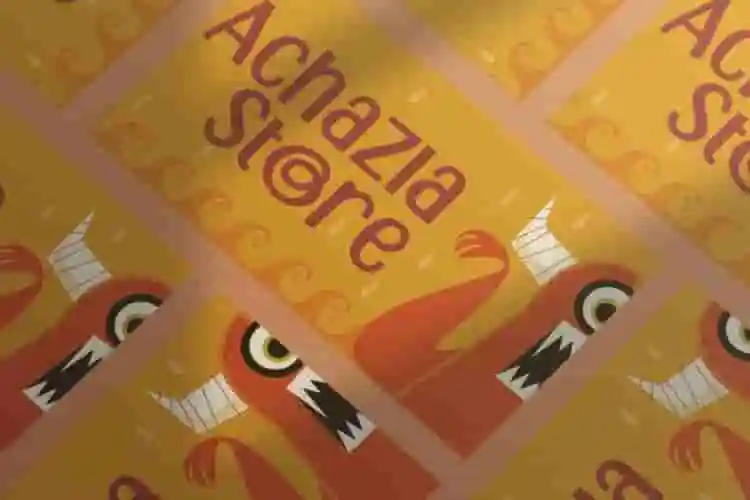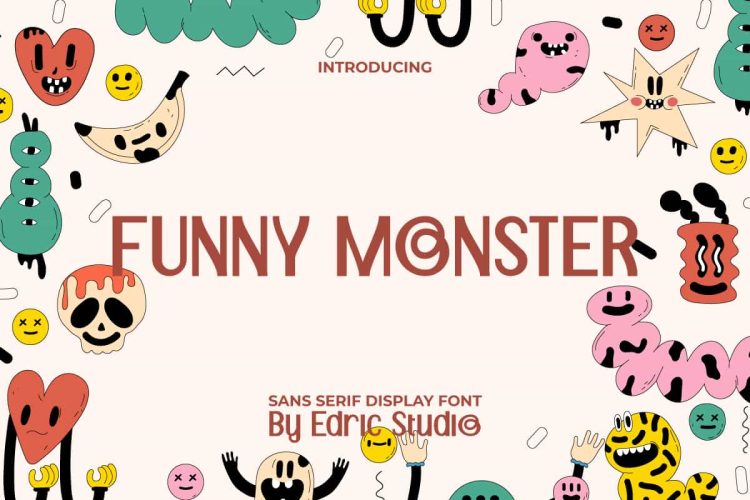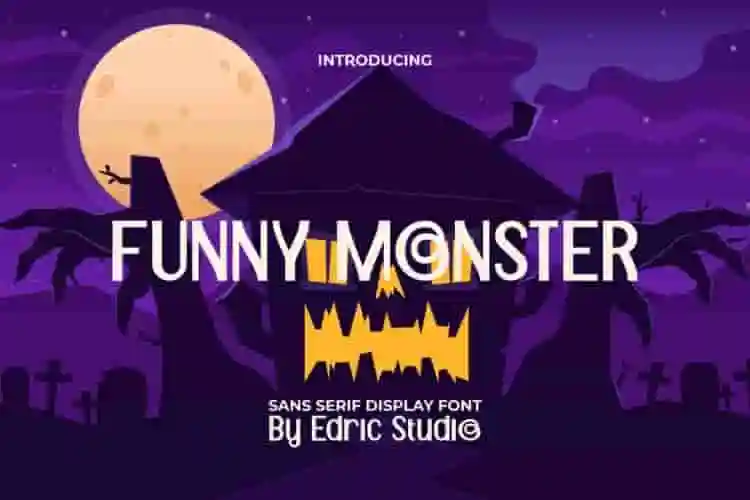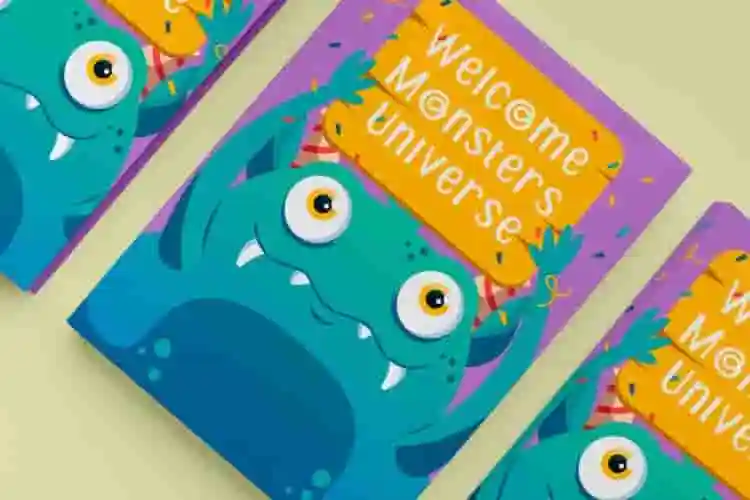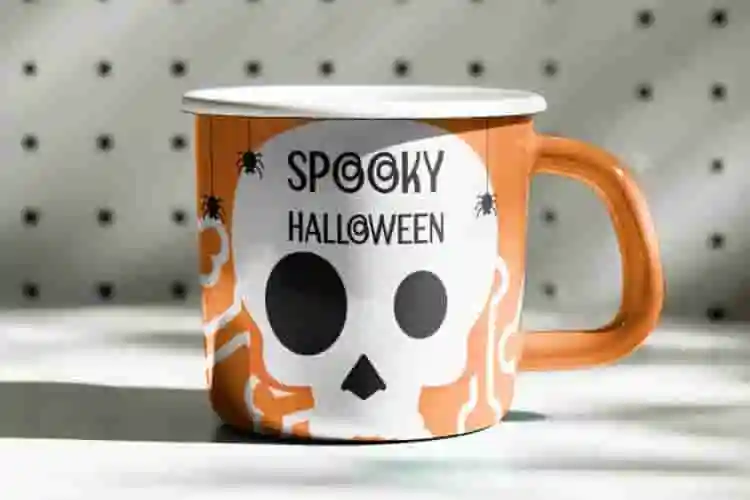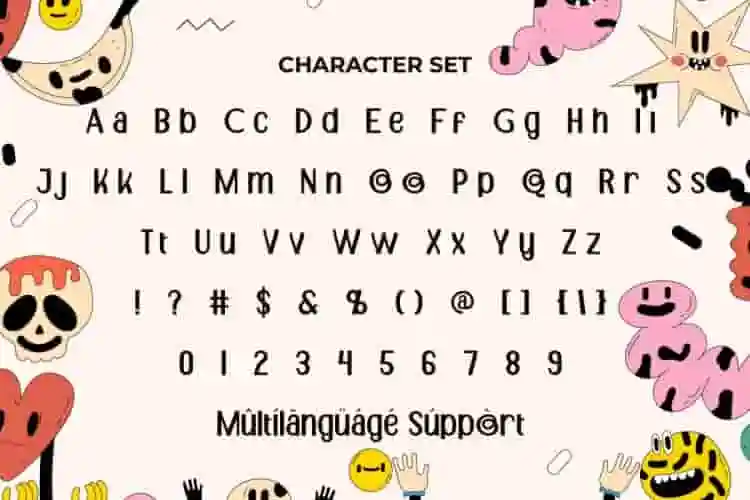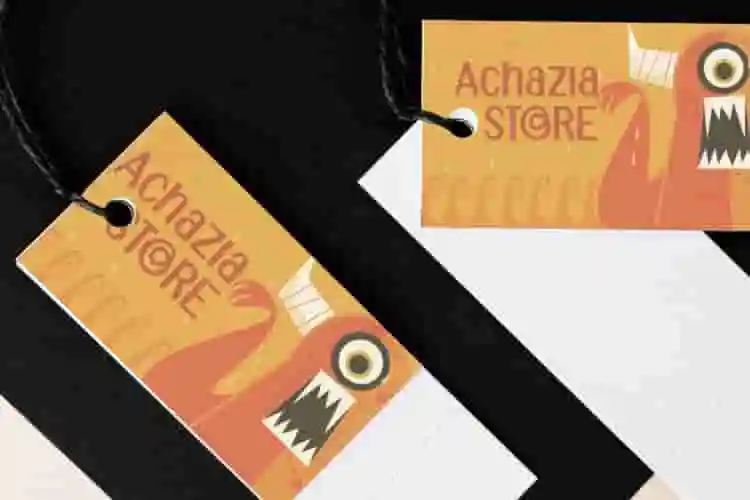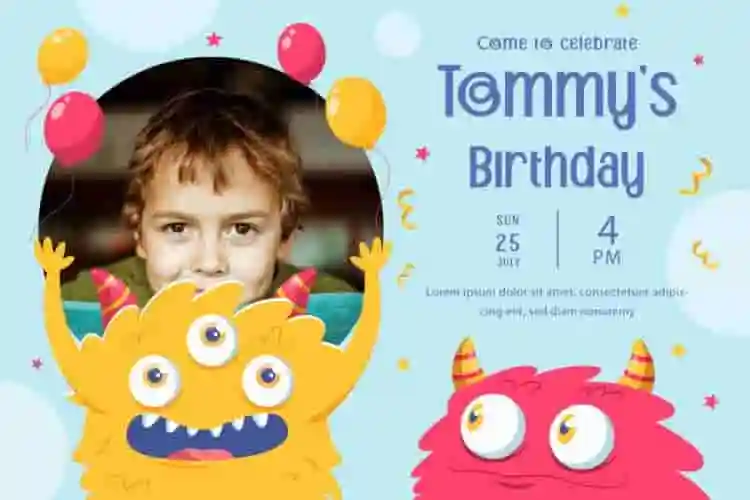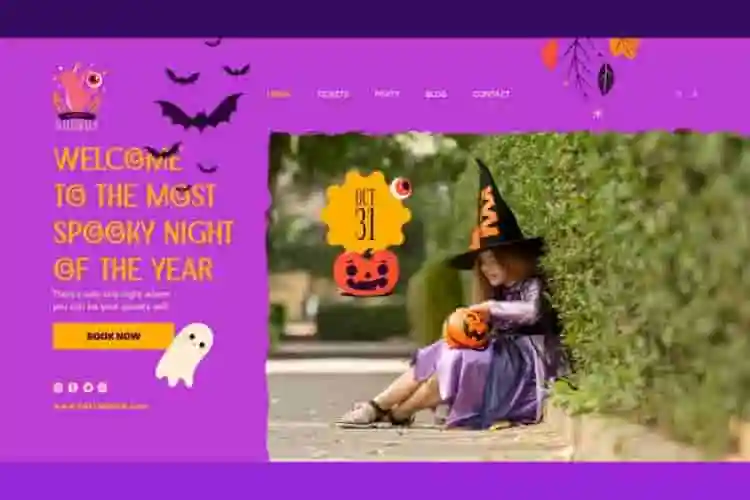
Funny Monster Font is a funny and playful sans serif display font. Inspired from cartoon cute movies, this font has a very attractive style and is suitable for any creative ideas you have. It will be suitable for any business, such as accessories, cafe, entertainment, fashion, kids stuff, party or event, photography, printing, publishing, restaurant, writer, and many more!
Funny Monster Font comes with full set of Uppercase and Lowercase Basic Characters, Number, a large range of Punctuation, and Symbol. It has cute characters set, perfectly managed with well spaced and kerning. Funny Monster Font will be able to complement for any design (with extended license) including: brand image, cartoon, comic, cover, custom design, invitation, label, merchandise, packaging design, poster, quote, screen print, signage, stationery, sticker, title, website page, etc.
Introducing Funny Monster Display Font — a whimsical and wacky display typeface that brings smiles, giggles, and a burst of imagination to any design. With quirky shapes, playful proportions, and a hand-drawn feel, this font is perfect for projects that don’t take themselves too seriously.
Designed to look like it jumped out of a cartoon or kid’s storybook, Funny Monster Display Font is ideal for branding, books, games, birthday invitations, toy packaging, and anything that needs a splash of fun. Each letter has its own little “personality,” making your message feel alive and full of character.
This all-caps display font is bold, colorful (if you let it be!), and crafted to catch the eye of children and kids-at-heart alike.
- Fun & Quirky Display Style
- All-Caps Typeface